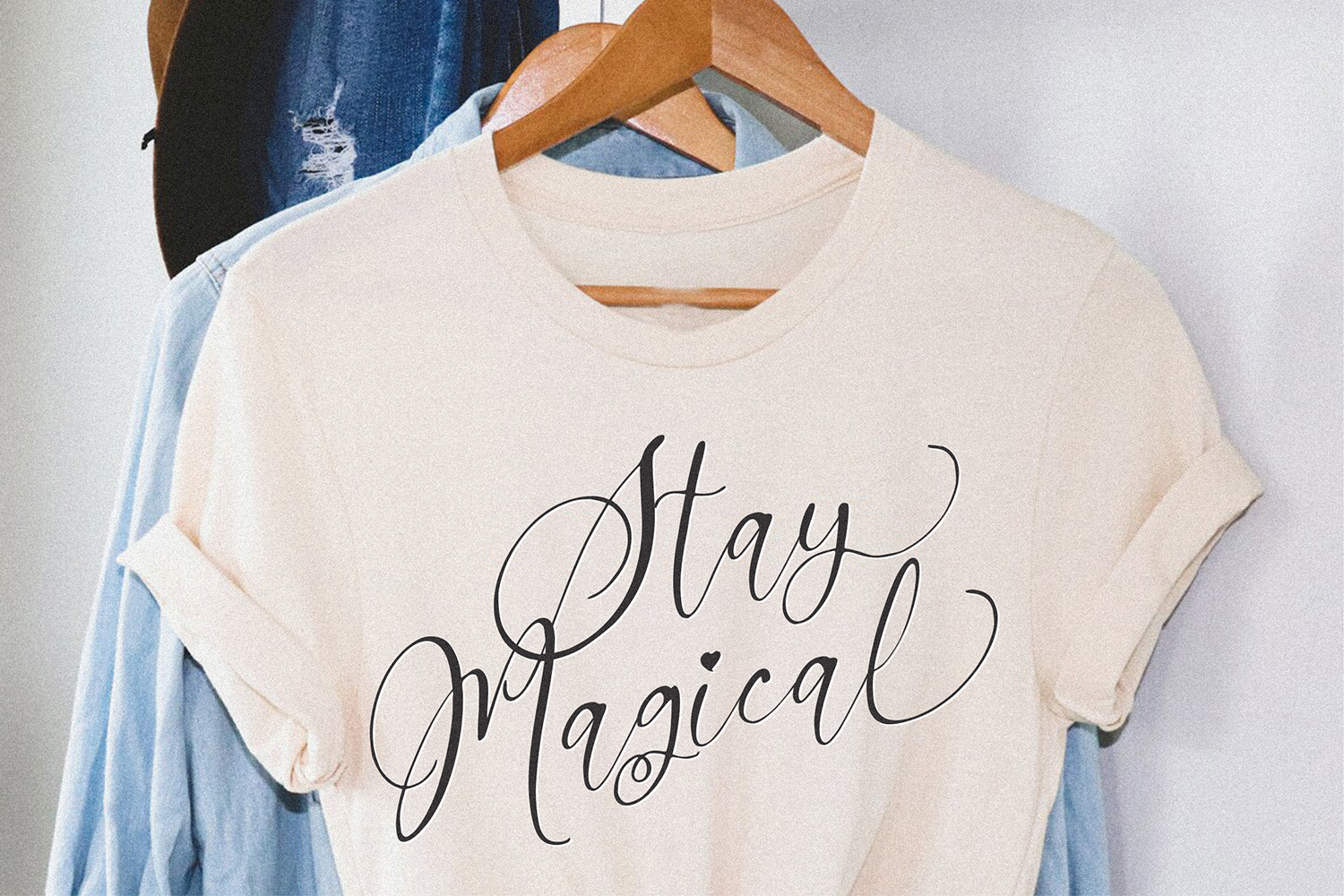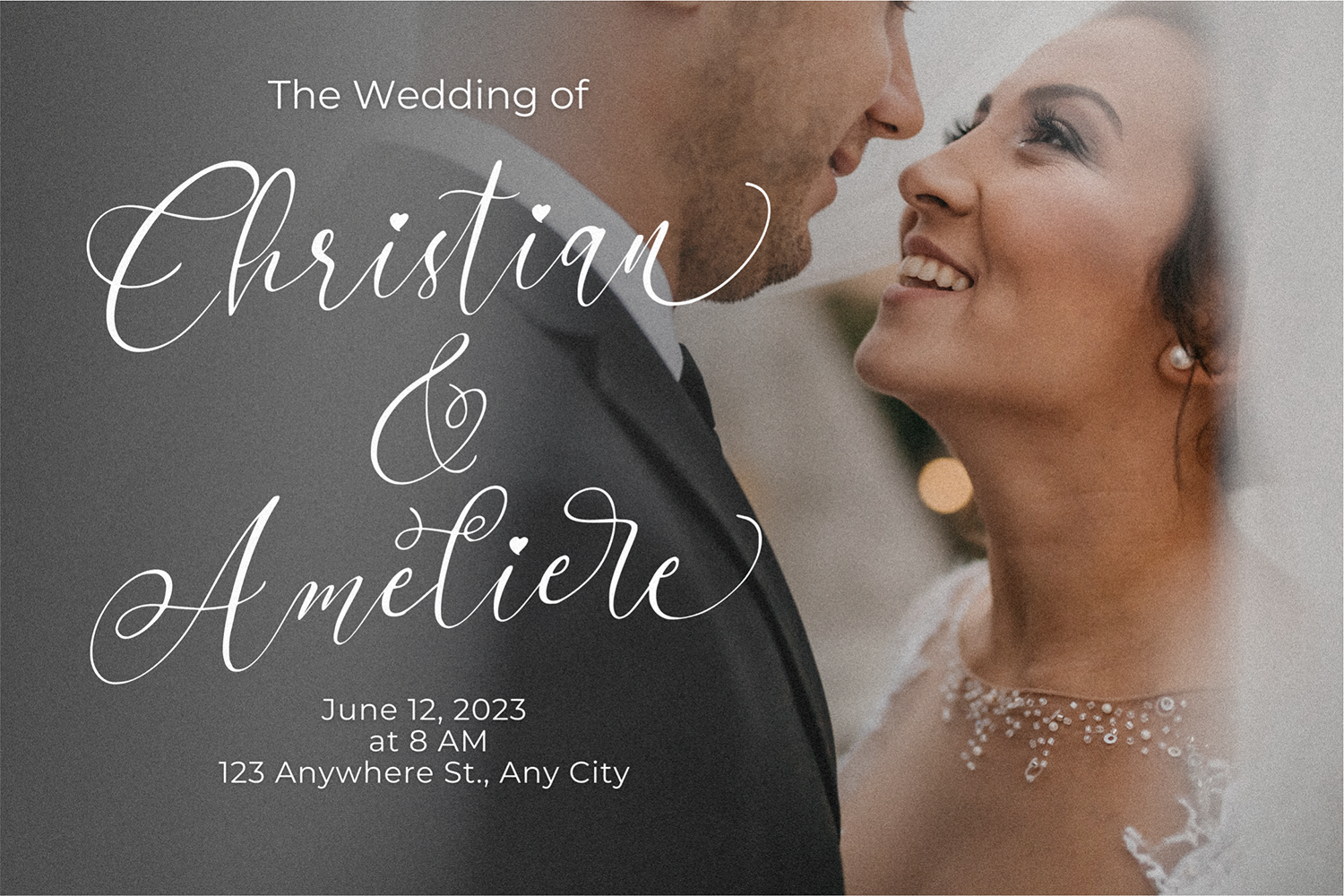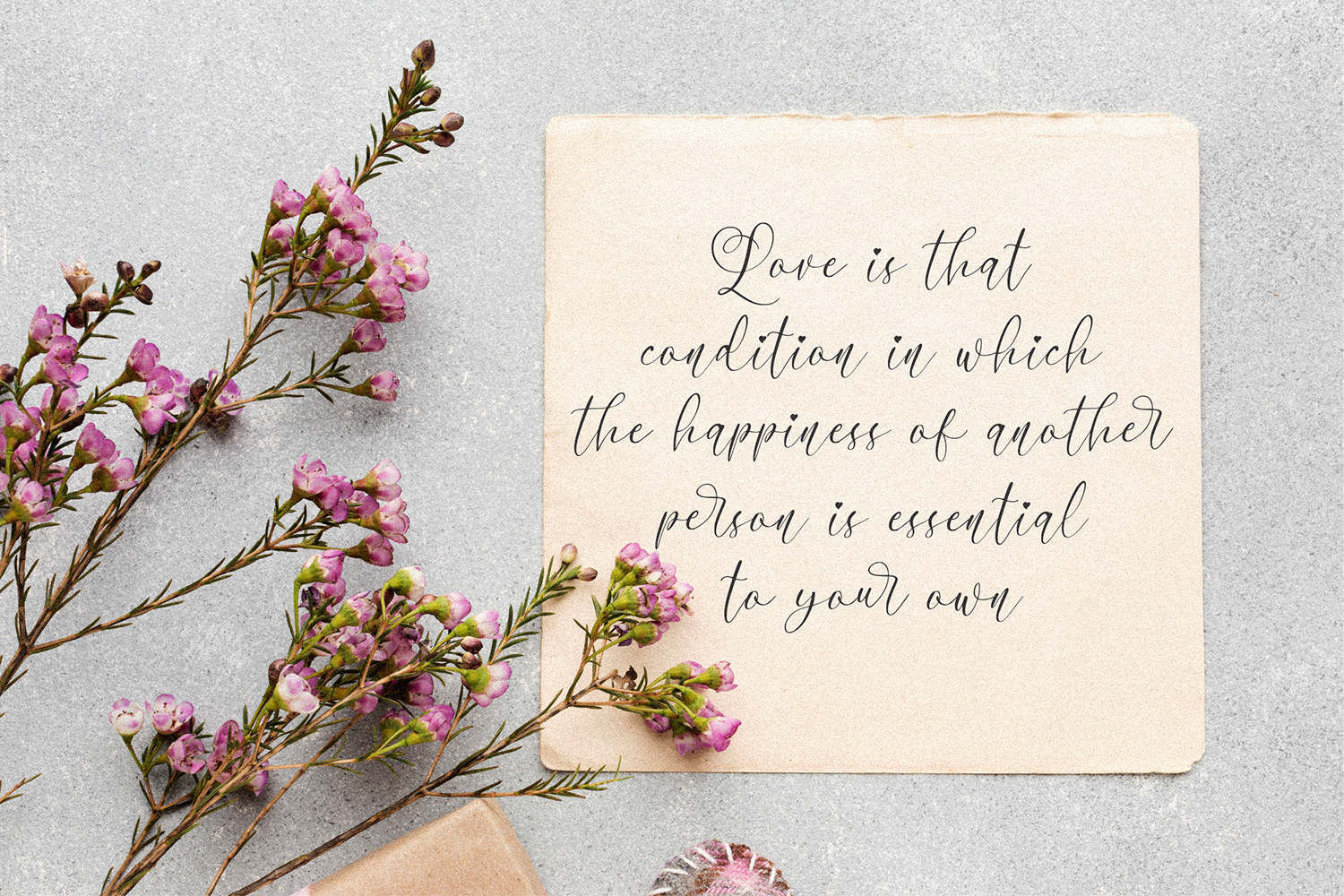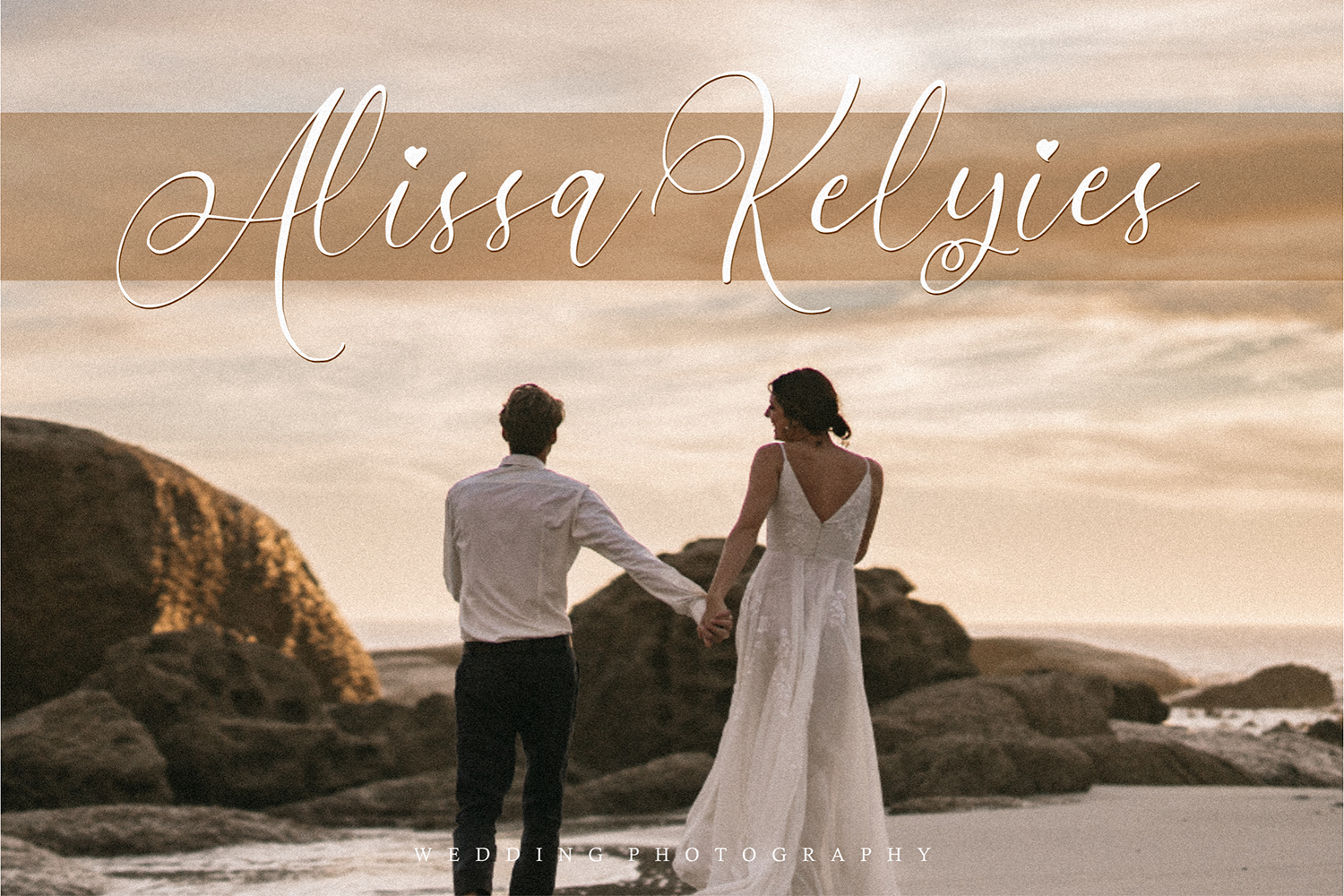
Astanayla Free Font
Astanayl aFree Font is a contemporary calligraphy font that seamlessly combines elegance and modernity. This versatile typeface is a go-to choice for a wide range of applications, including product packaging, branding projects, magazines, social media posts, weddings, and more. Whether you’re looking to add a touch of sophistication to your designs or express powerful words against any background, Astanayla is the ideal choice. With its exquisite curves and fluid strokes, this font is sure to elevate your creative endeavors. This free typeface was designed by a talented Qwrtype Foundry. If you like it don’t forget to check out the full version.